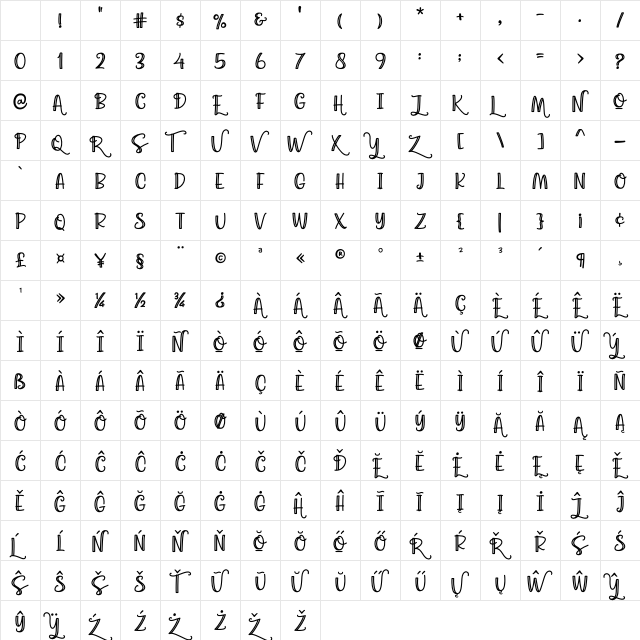
Complete AgathaCaroline1 Regular glyph index. Displaying only characters natively supported by AgathaCaroline1 Regular font.
AgathaCaroline1 is a composed and adaptable typeface that performs quietly and consistently across a wide range of design contexts.